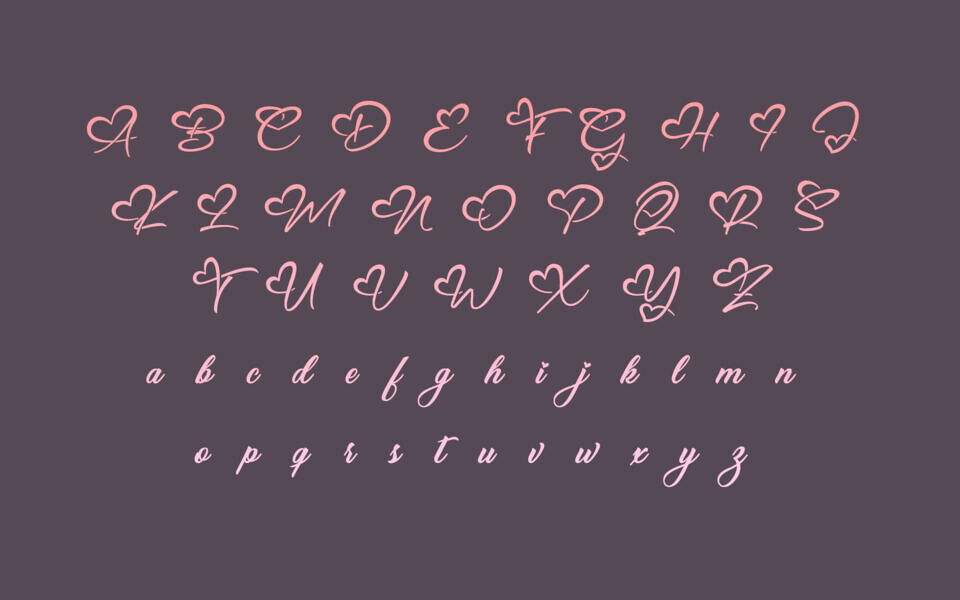
Hugh is Life Font is a romantic handwritten script that beautifully blends elegance and emotion. Featuring heart-shaped accents within its graceful letters, this font adds a sweet, loving touch to any design. Perfect for wedding invitations, Valentine’s cards, love quotes, and branding, it captures the essence of affection and warmth. Its smooth curves and stylish flow create a modern yet timeless aesthetic.